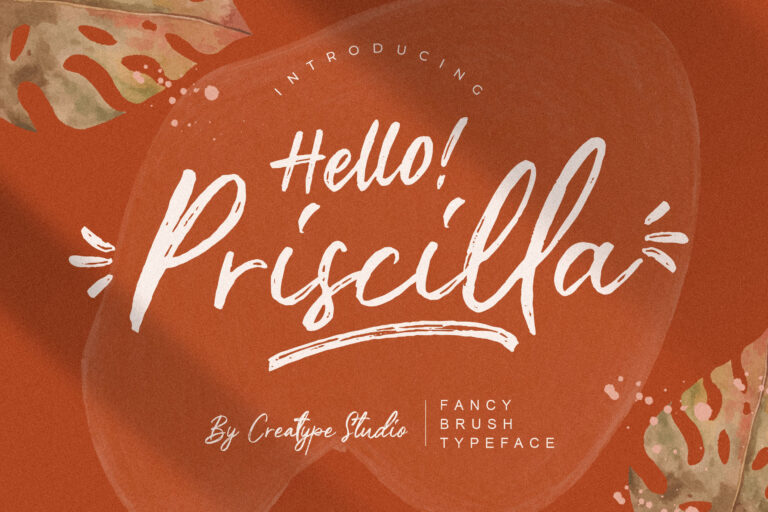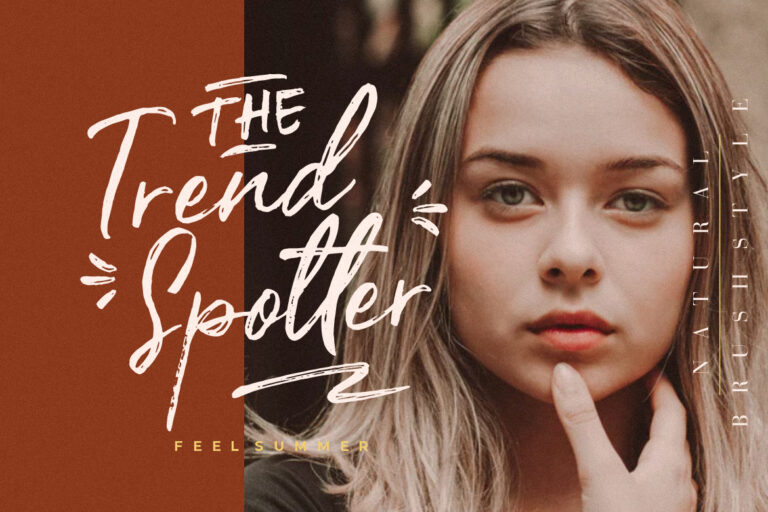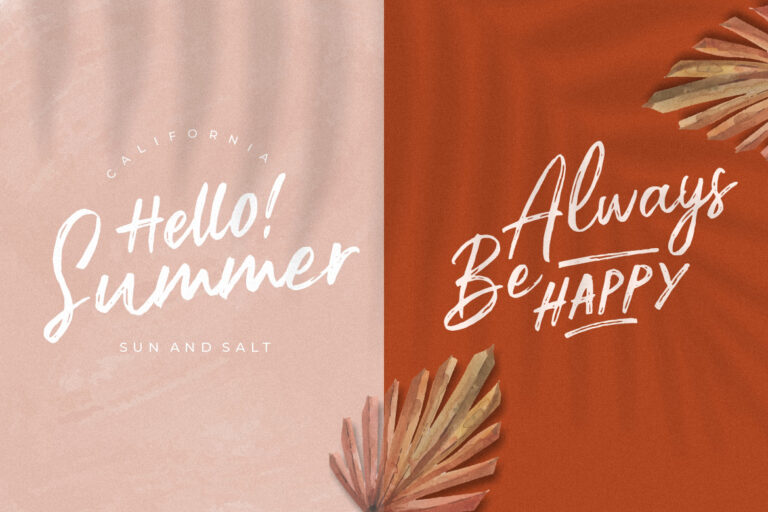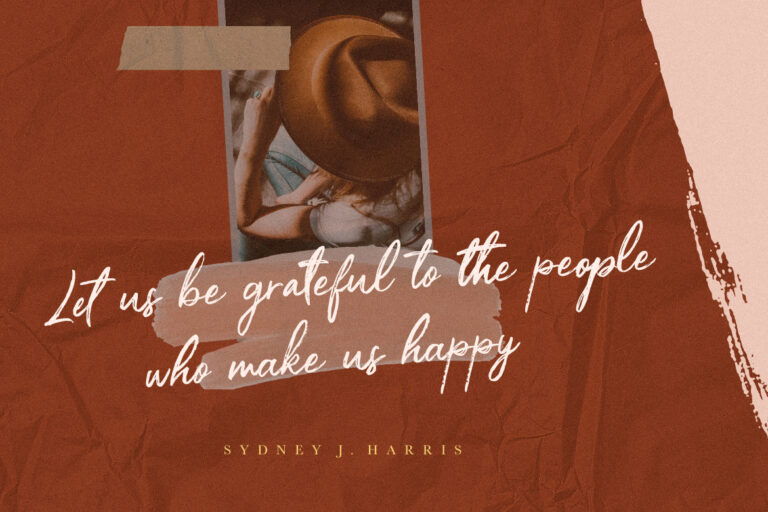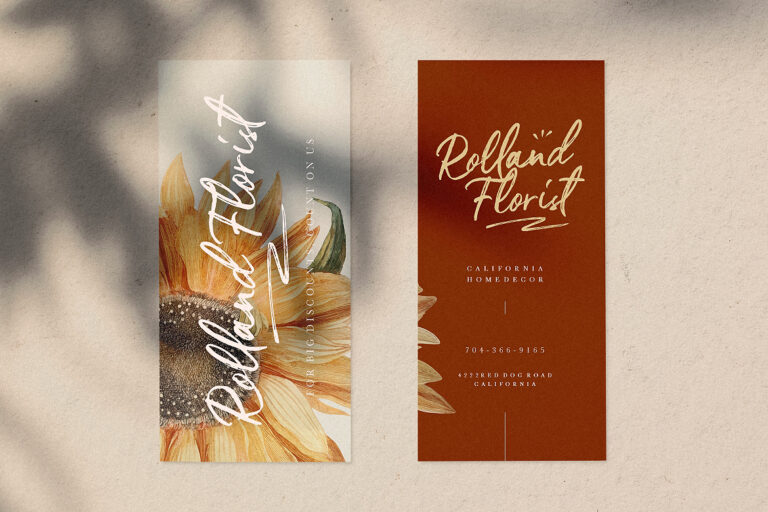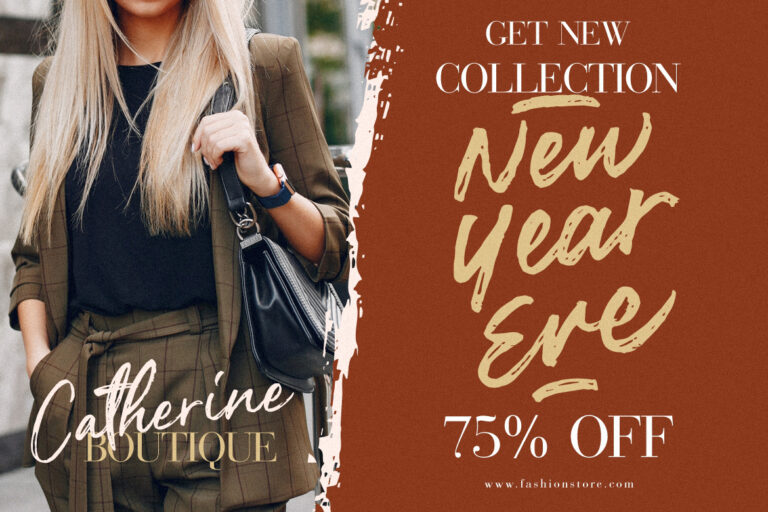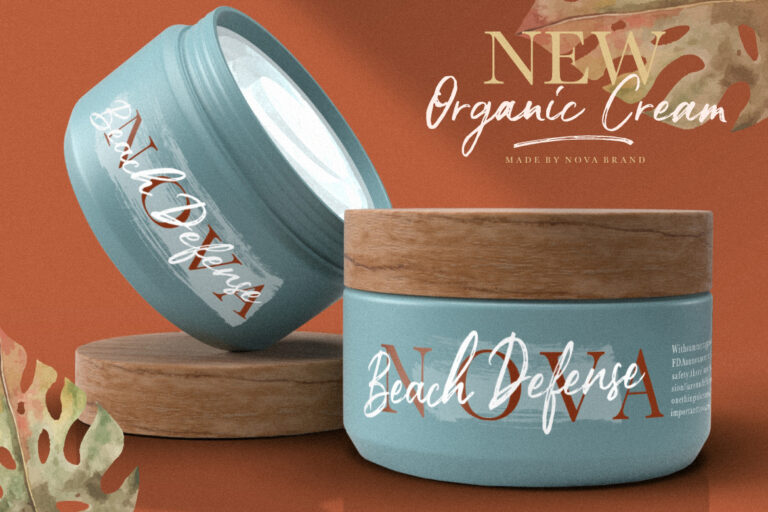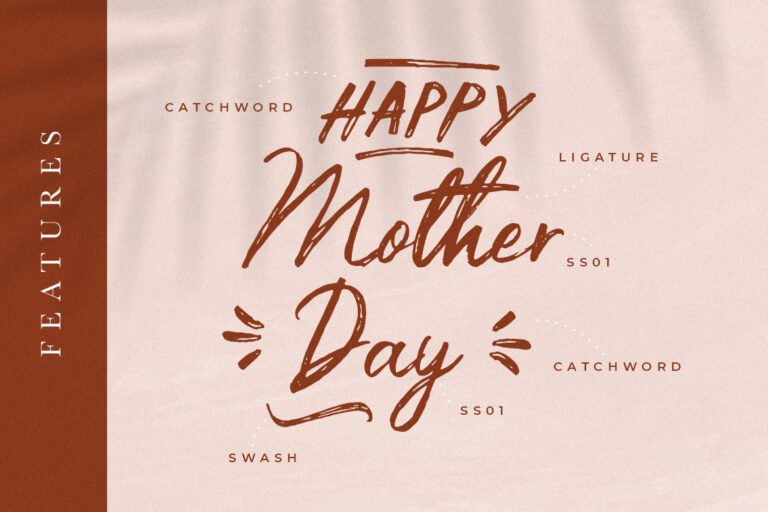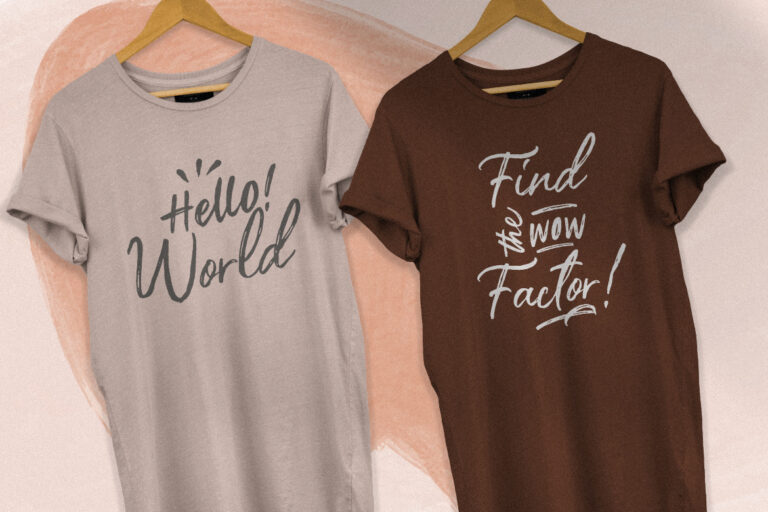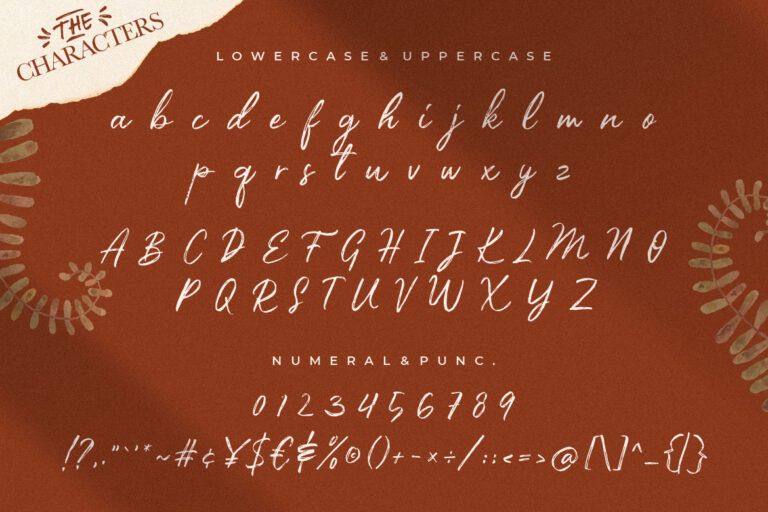
Priscilla Fancy Brush Typeface
Priscilla a fancy brush font with natural scratch movement perfect for your amazing project.
Priscilla would perfect for photography, watermark, social media posts, advertisements, logos & branding, invitation, product designs, label, stationery, wedding designs, product packaging, special events or anything that need handwriting taste.
- Ligature, Alternate & Swashes